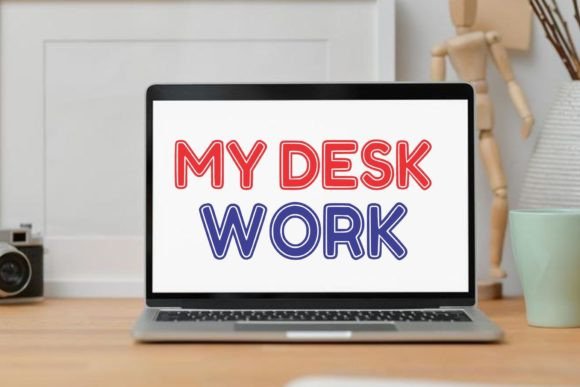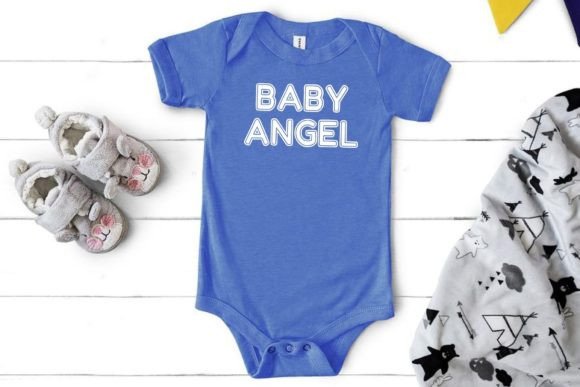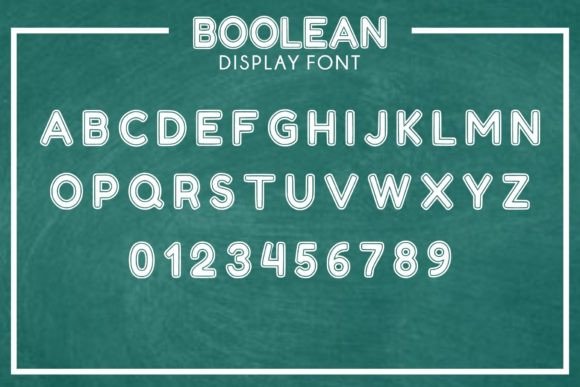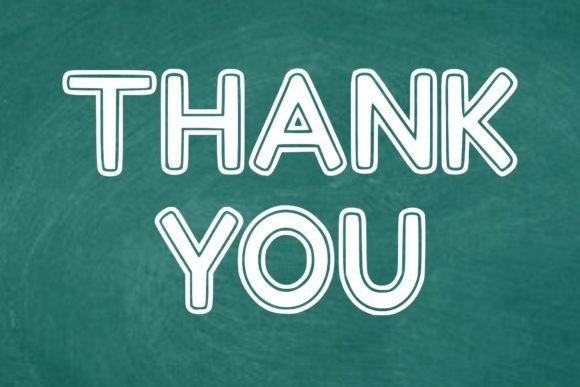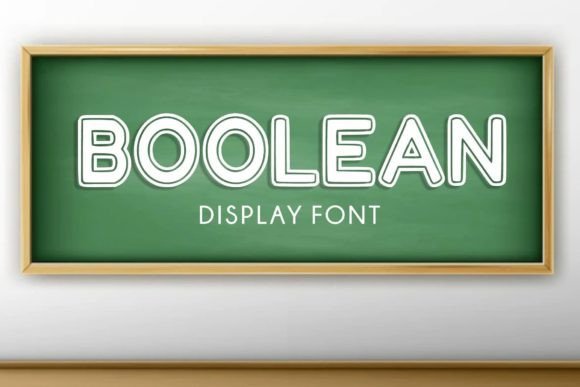
The Ultimate Guide to Boolean Font: Elevate Your Creative Projects
I’ll never forget the time I was working on a children’s book design project, and I just couldn’t find the right font to bring the story to life. The client wanted something fun, playful, and eye-catching, but also easy to read. I spent hours scouring the internet, trying out different fonts, but nothing seemed quite right. That’s when I stumbled upon Boolean Font, and it was love at first sight! 💕
Boolean is a fun and aesthetic display font that will make your creative projects extraordinary! This font is perfect for t-shirts, stickers, book covers, children’s books, social media posts, invitations, and more! In this article, we’ll dive into the world of Boolean Font, exploring its features, how to use it, and what makes it so special.
An Honest Review of Boolean Font
What I Love About Boolean Font ✨
- Unique and quirky design that’s sure to grab attention ✅
- Perfect for display text, headlines, and titles
- Works well for both digital and print projects
- Easy to read, even at smaller sizes
- OpenType features, glyphs, and stylistic alternates for added creativity
- May not be suitable for body text or long paragraphs ⚠️
- Some characters may not work well in all contexts (e.g., @ symbol)
The Backstory of Boolean Font
Boolean Font was designed with creativity and playfulness in mind. The designer wanted to create a font that would inspire artists, designers, and crafters to push the boundaries of their imagination. With its unique and quirky design, Boolean Font is perfect for anyone looking to add a touch of whimsy to their projects.
A: Boolean Font is a fun and aesthetic display font designed for creative projects, including t-shirts, stickers, book covers, and more!
A: While Boolean Font is easy to read, it may not be the best choice for body text or long paragraphs. It’s best used for display text, headlines, and titles.